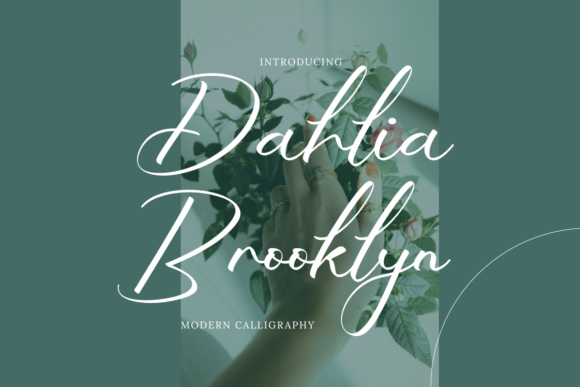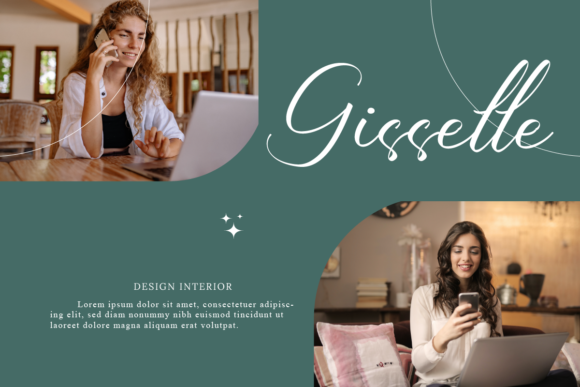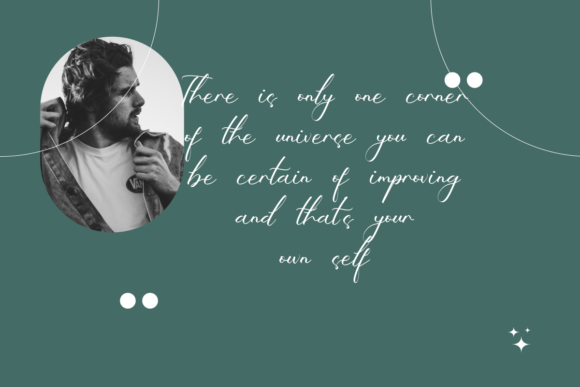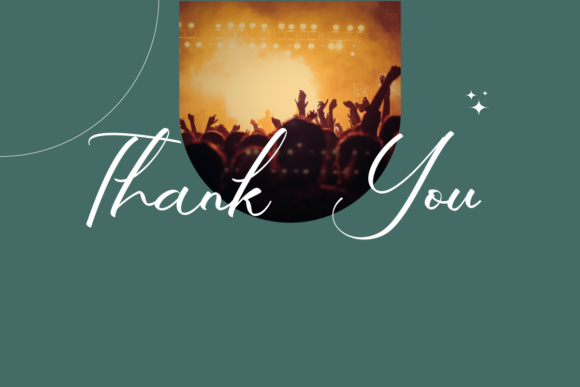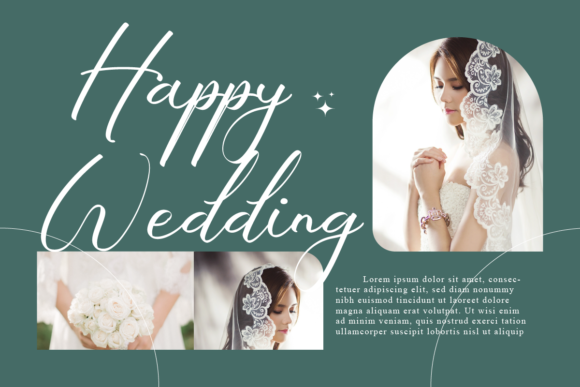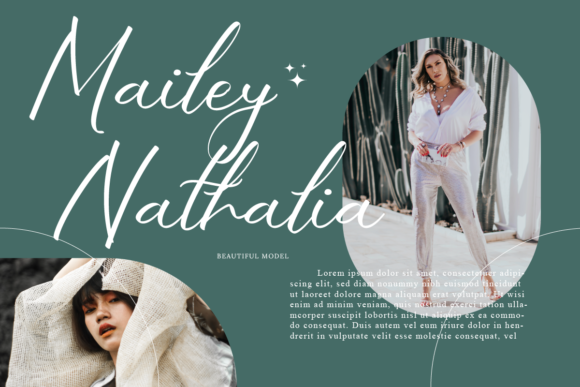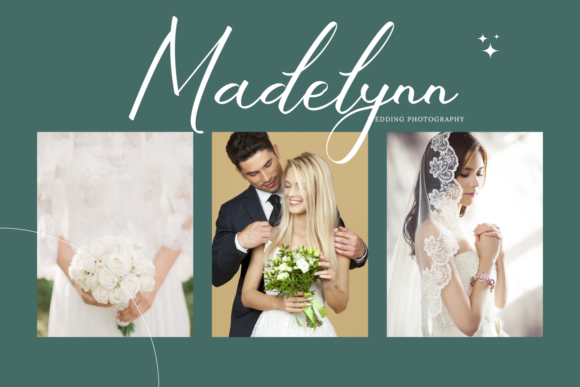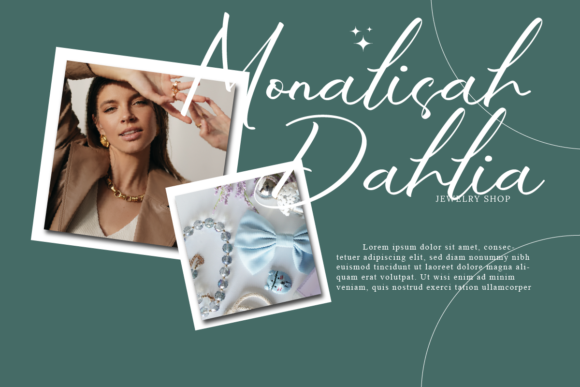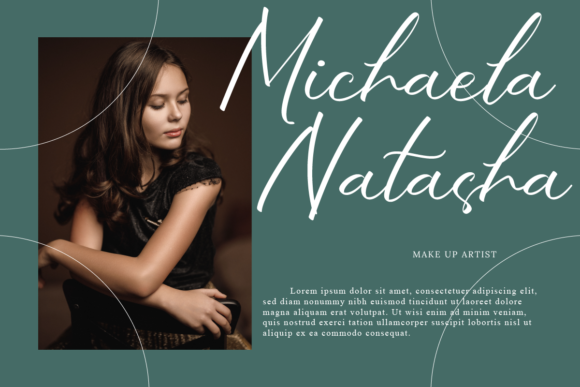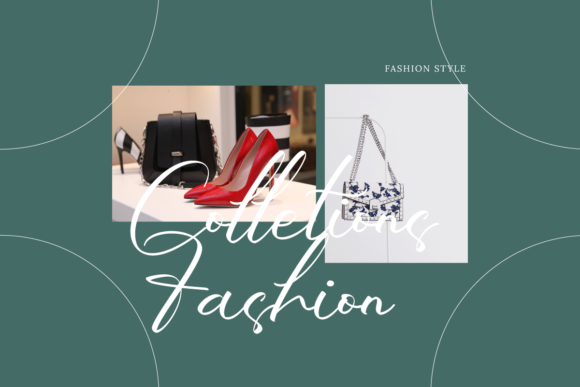
Dahlia Brooklyn Font
About Dahlia Brooklyn Font
Dahlia Brooklyn is a stylish and relaxed handwritten font. It looks stunning on wedding invitations, thank you cards, quotes, greeting cards, logos, business cards and every other design which needs a handwritten touch.